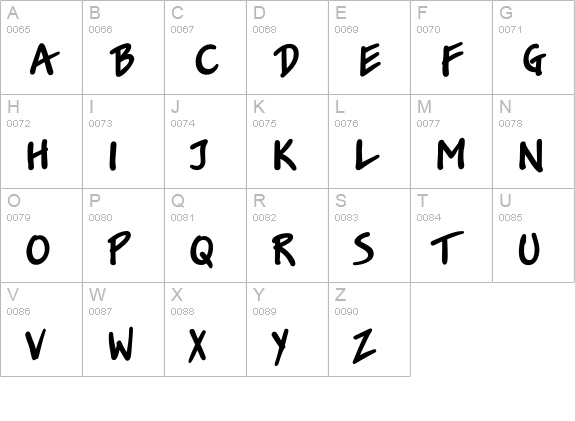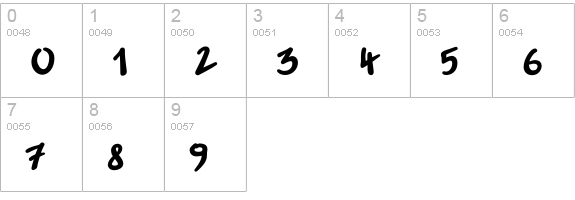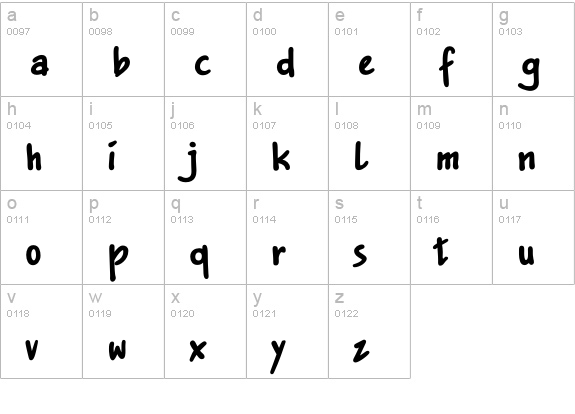
PT Jakob Extra Cyrillic Font Details
Introducing PT Jakob Extra Cyrillic font, a stunning typeface that effortlessly combines elegance and modernity. With its sleek lines and exquisite curves, this font is sure to elevate any design project to new heights. Designed with precision and attention to detail, PT Jakob Extra Cyrillic font offers a wide range of characters, making it versatile for various design purposes. Whether you're creating a logo, designing a website, or crafting a poster, this font will add a touch of sophistication and professionalism to your work. Not only does PT Jakob Extra Cyrillic font boast an impressive array of characters, but it also features a variety of weights and styles, allowing you to choose the perfect combination to suit your design needs. From bold and impactful to subtle and refined, this font has it all. One of the best things about PT Jakob Extra Cyrillic font is that it is free. That's right, this exceptional font is freely available to download at FontsMarket.com. Now you can enhance your designs without breaking the bank. Whether you're a professional designer or a casual enthusiast, this font is a must-have in your collection. So why wait? Elevate your designs with the timeless elegance of PT Jakob Extra Cyrillic font. Download it for free today at FontsMarket.com and let your creativity soar.